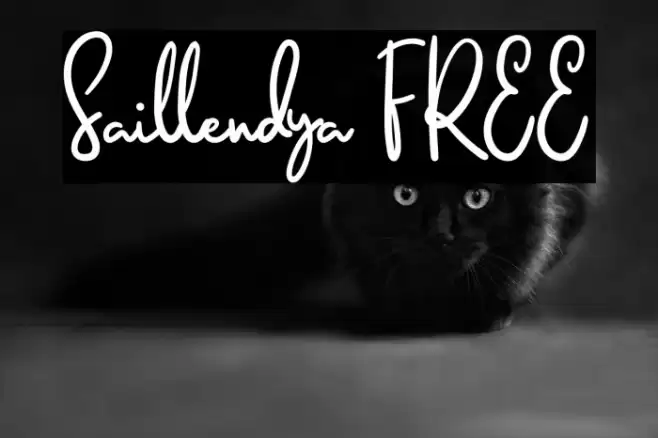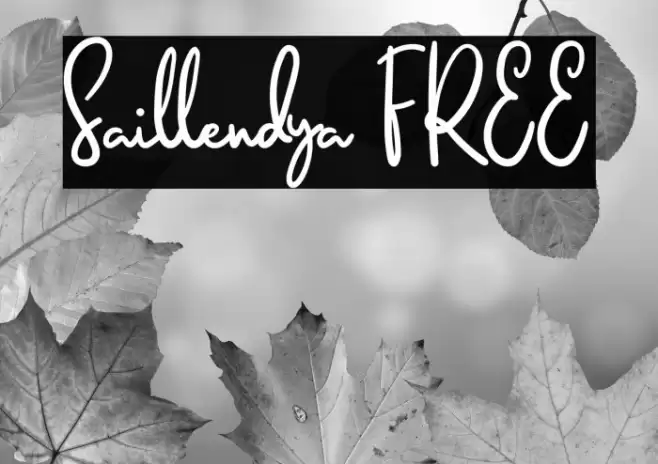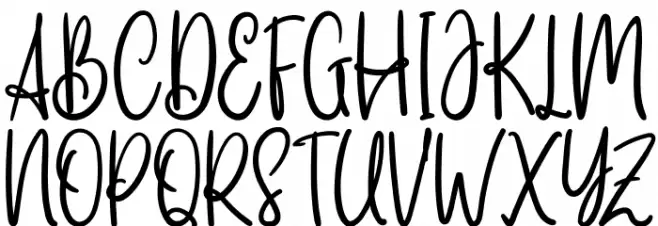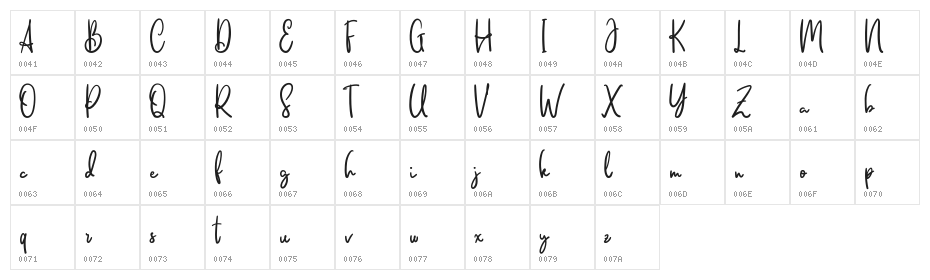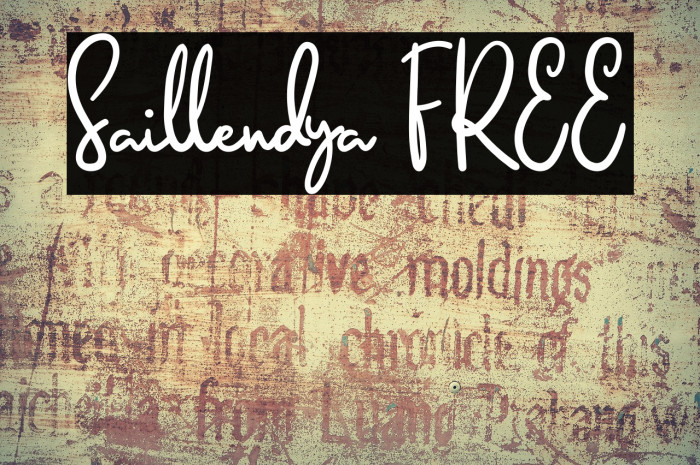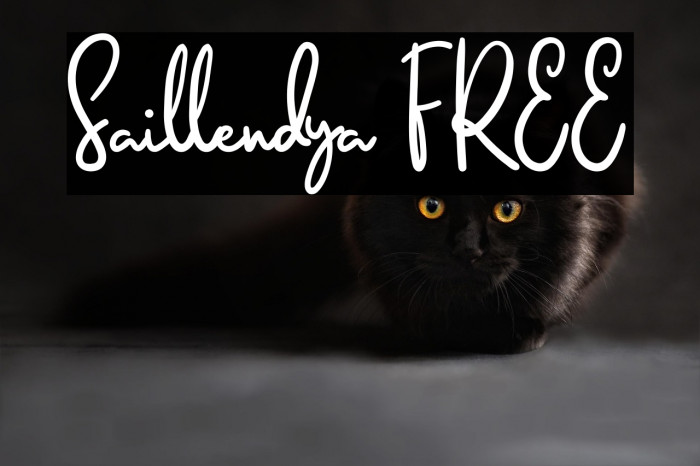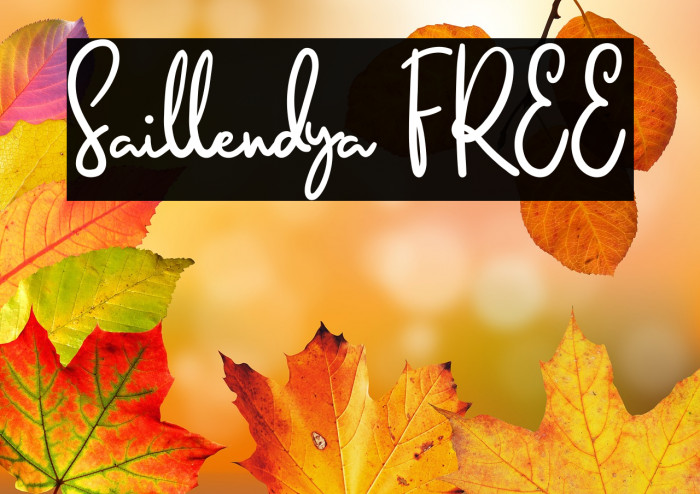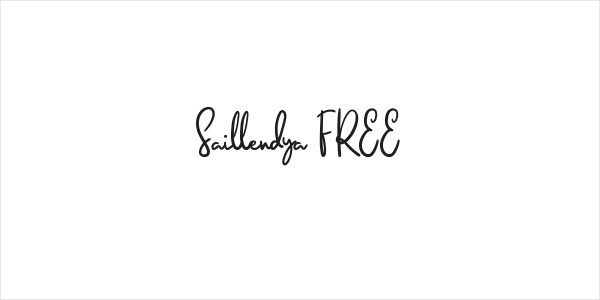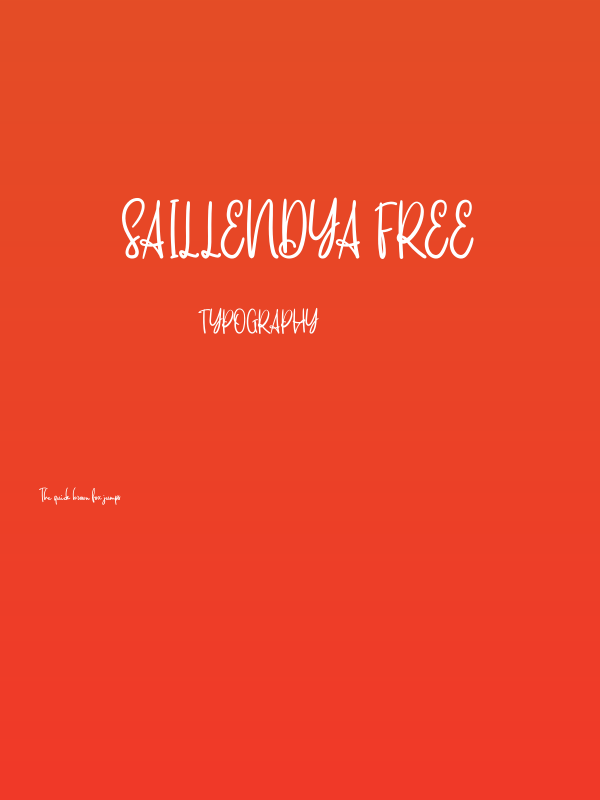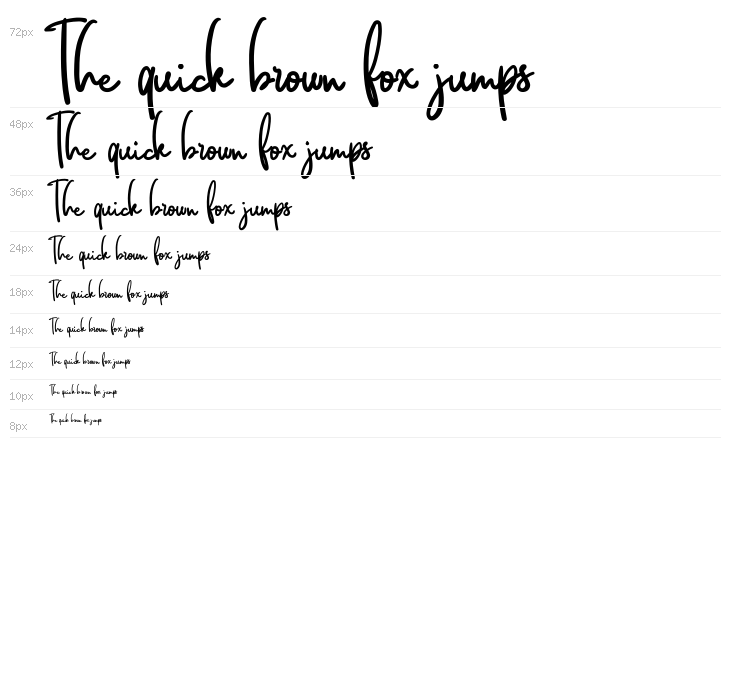
Saillendya FREE Font
Saillendya FREE Description
This font features a playful and energetic script style with a handwritten appearance. The letters are characterized by their fluid, looping strokes and varying thickness, giving it a dynamic and lively feel. The uppercase letters are bold and slightly elongated, while the lowercase letters maintain a consistent flow with a more compact form. The overall design is informal and friendly, making it suitable for creative and casual applications. The font's unique personality is enhanced by its slightly irregular baseline, adding to its charm and approachability.
A playful, handwritten script font with dynamic, looping strokes from Regular fonts.
- Proposed Projects: Ideal for greeting cards, invitations, branding, and social media graphics.
- Use Case: Logos, Headlines, Invitations